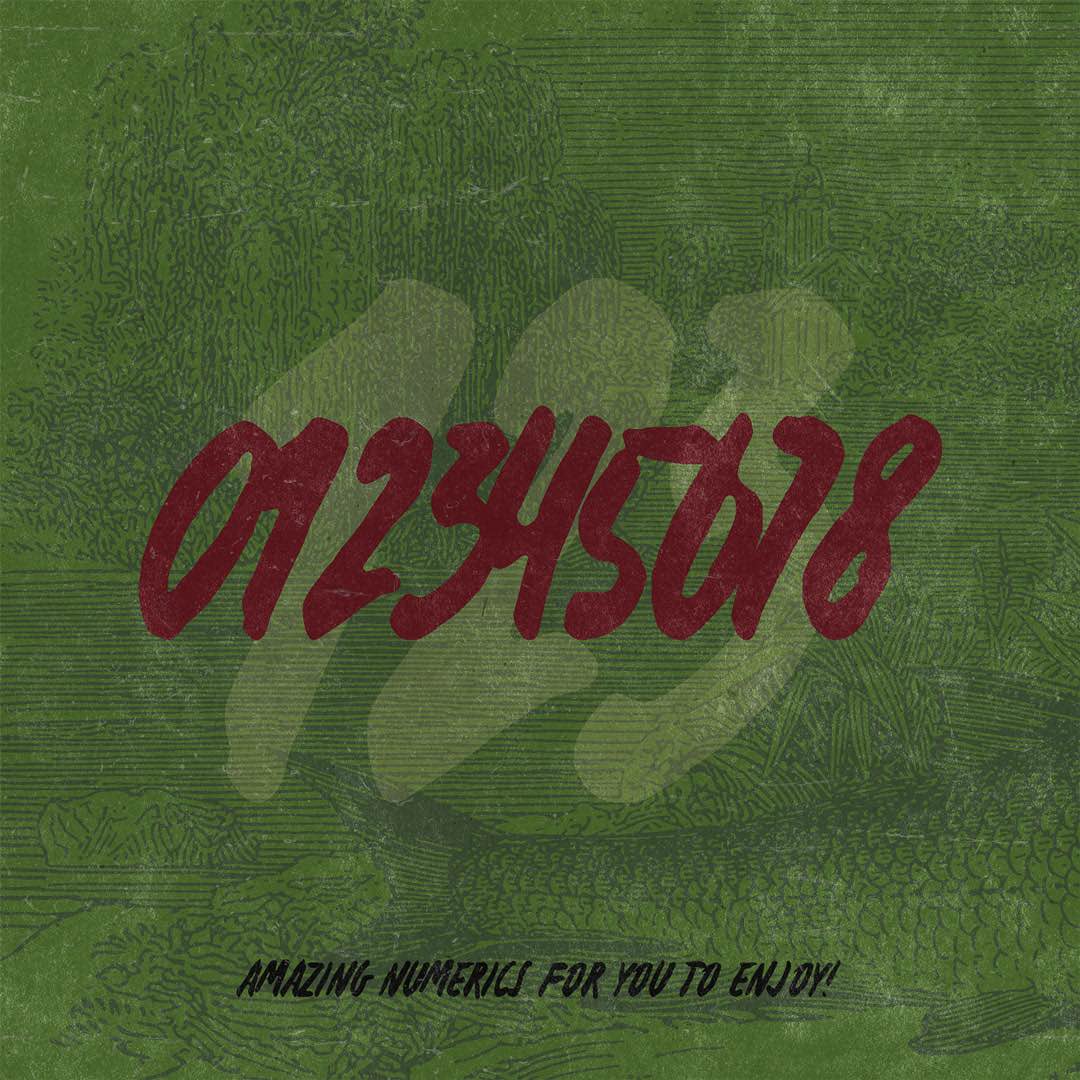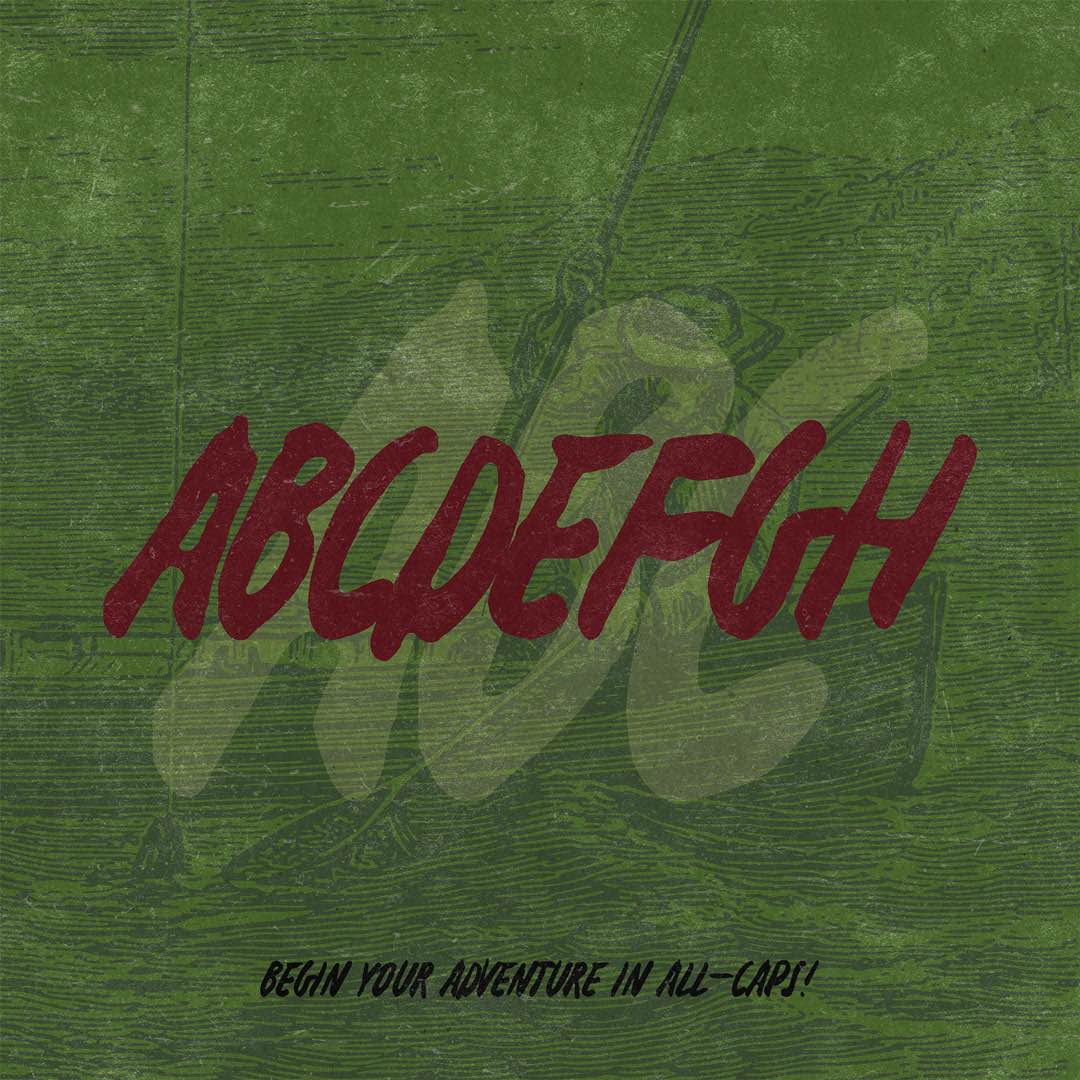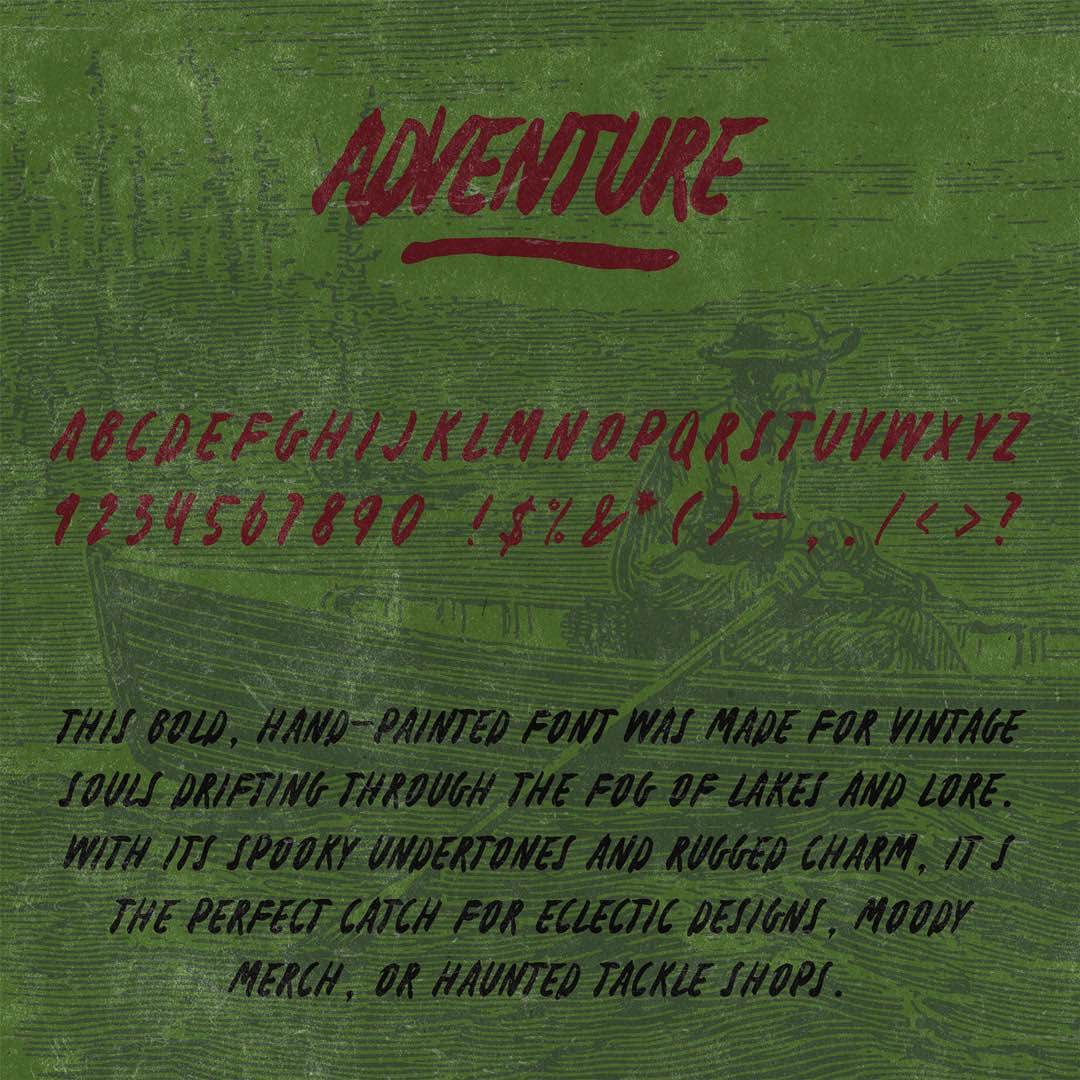
Adventure is a bold, hand-painted typeface crafted for the wild at heart. With thick brushstrokes and an eerie edge, this font captures the spirit of foggy lakes, haunted cabins, and vintage tackle boxes. Its raw, gritty texture lends itself to everything from horror posters to retro-inspired logos, apparel, and outdoor gear. Whether you’re designing for the great unknown or something a little more supernatural, Adventure brings just the right amount of chaos.